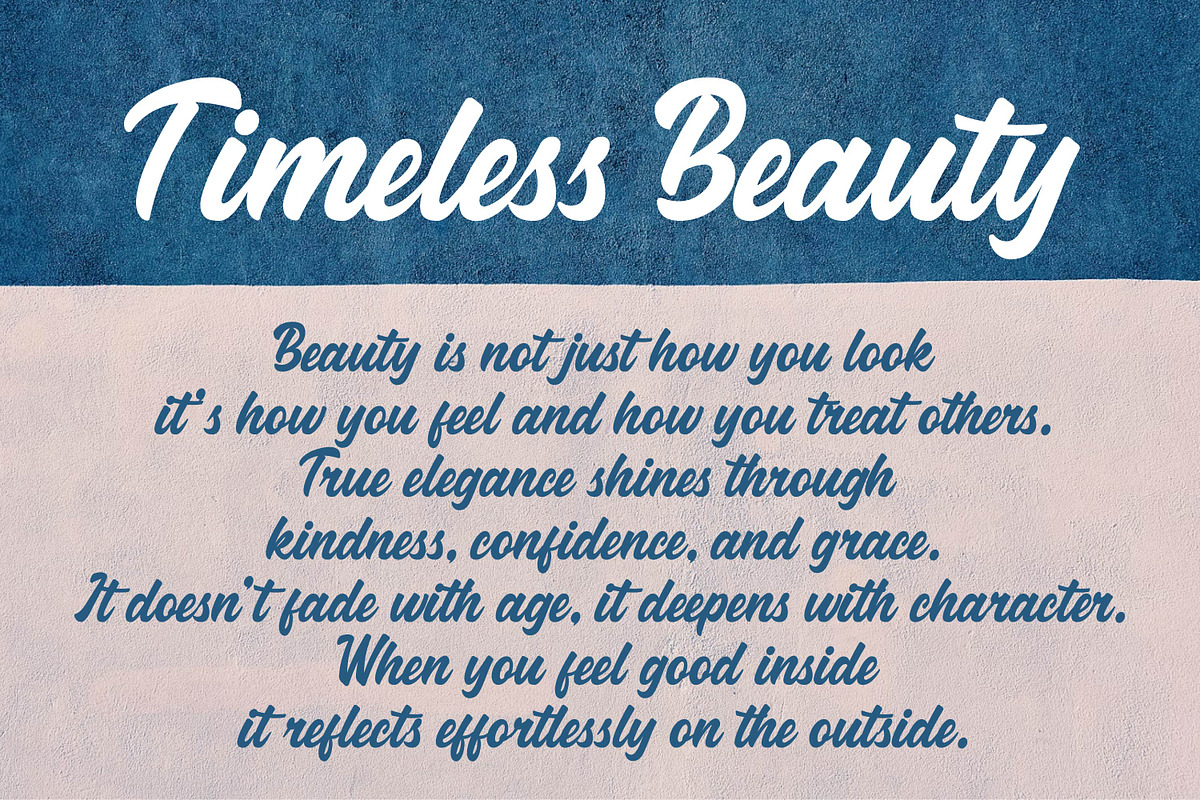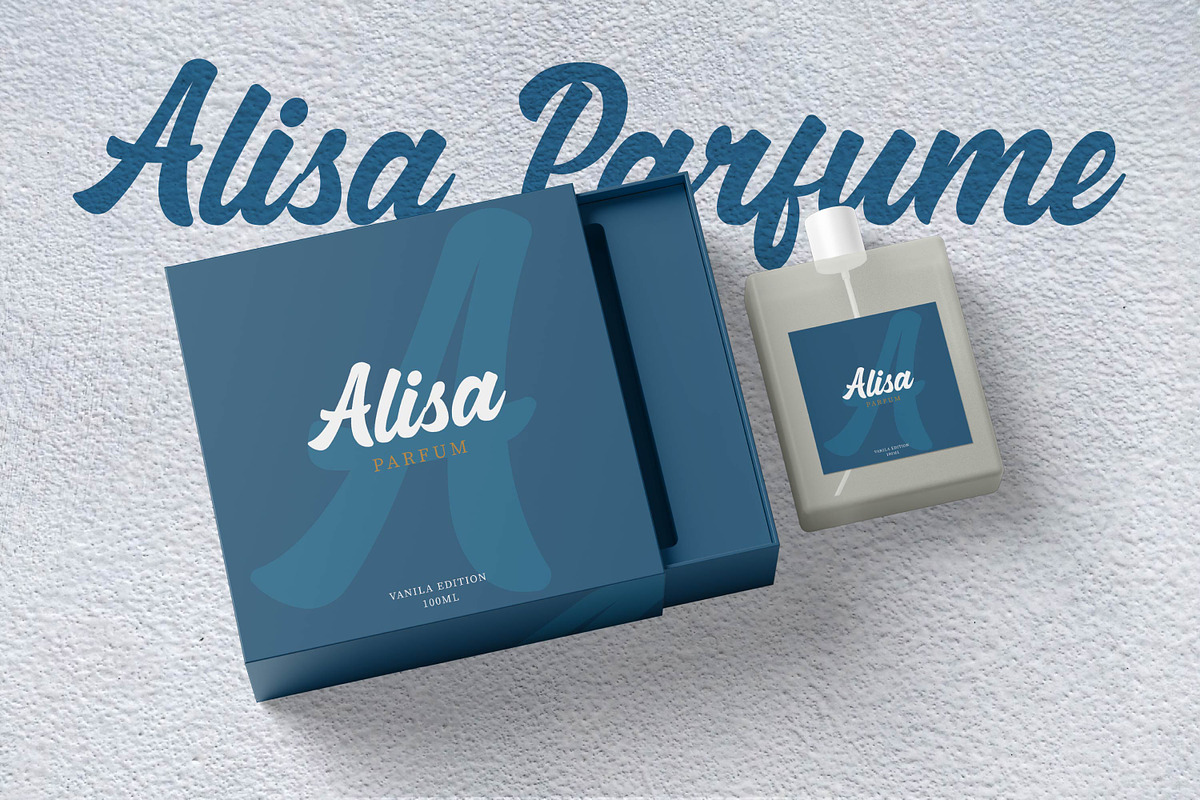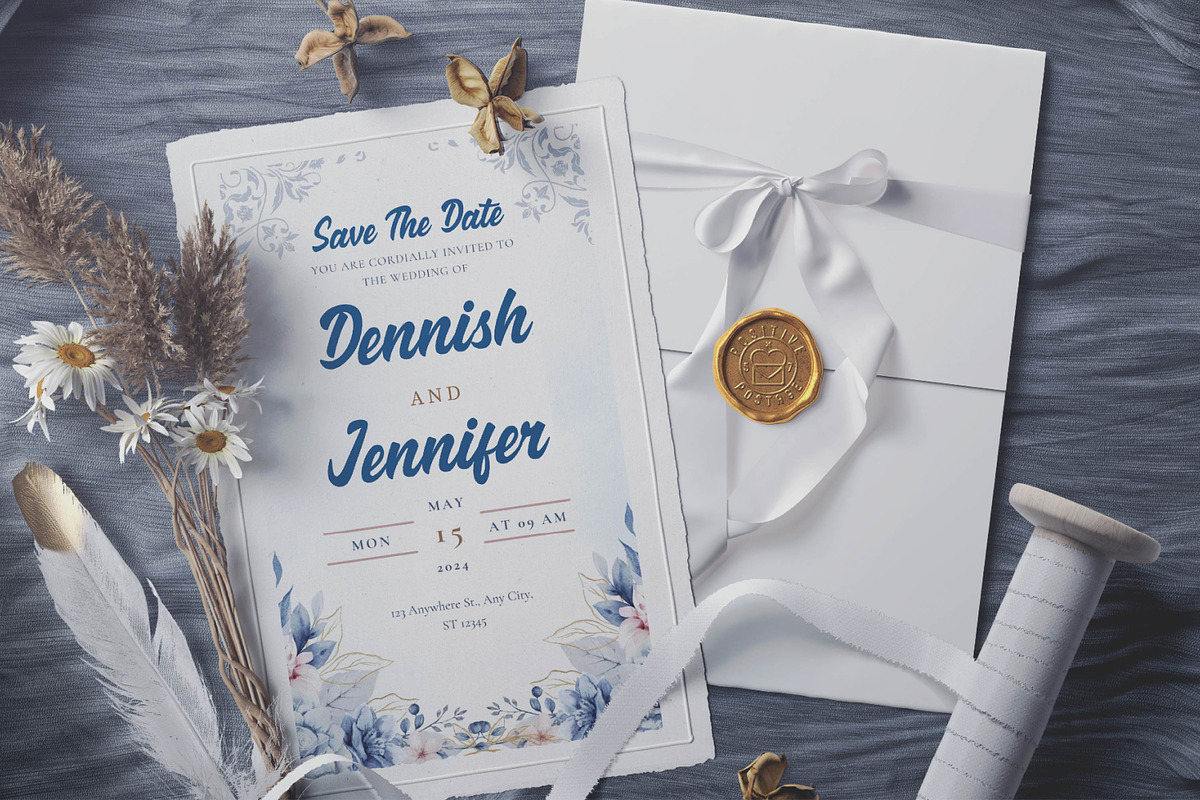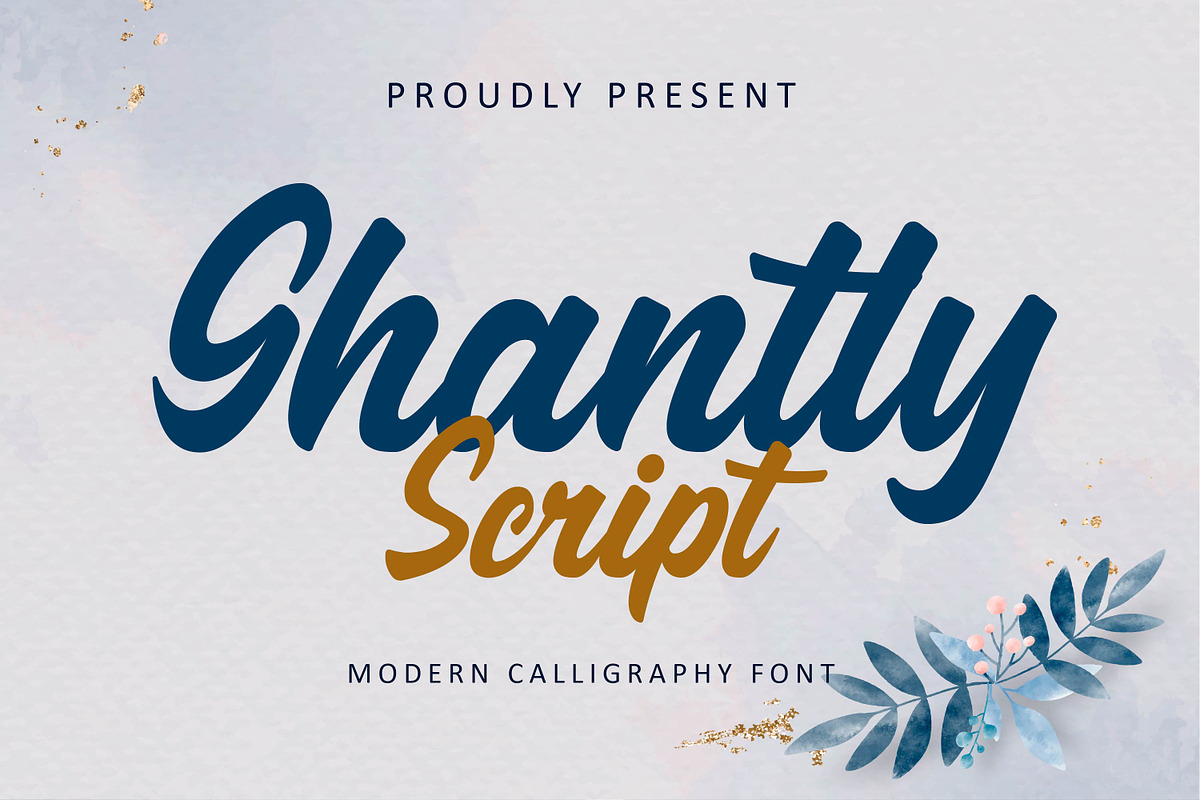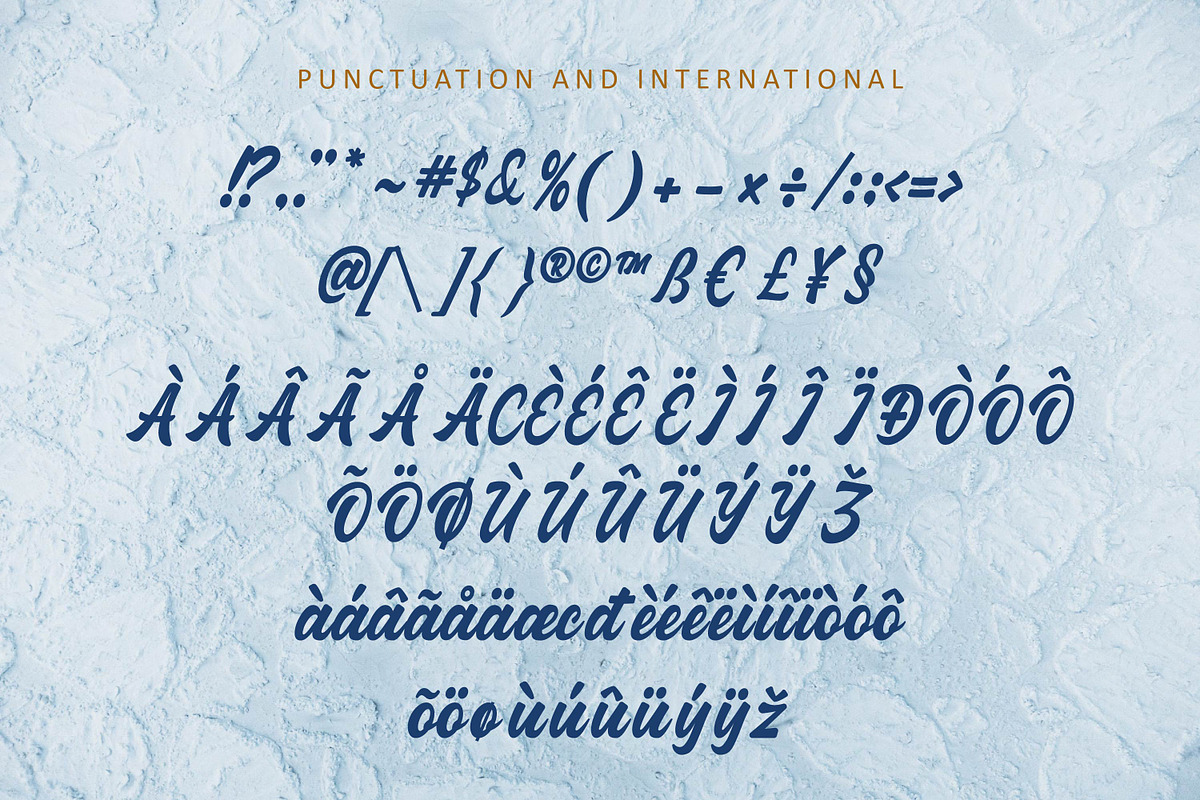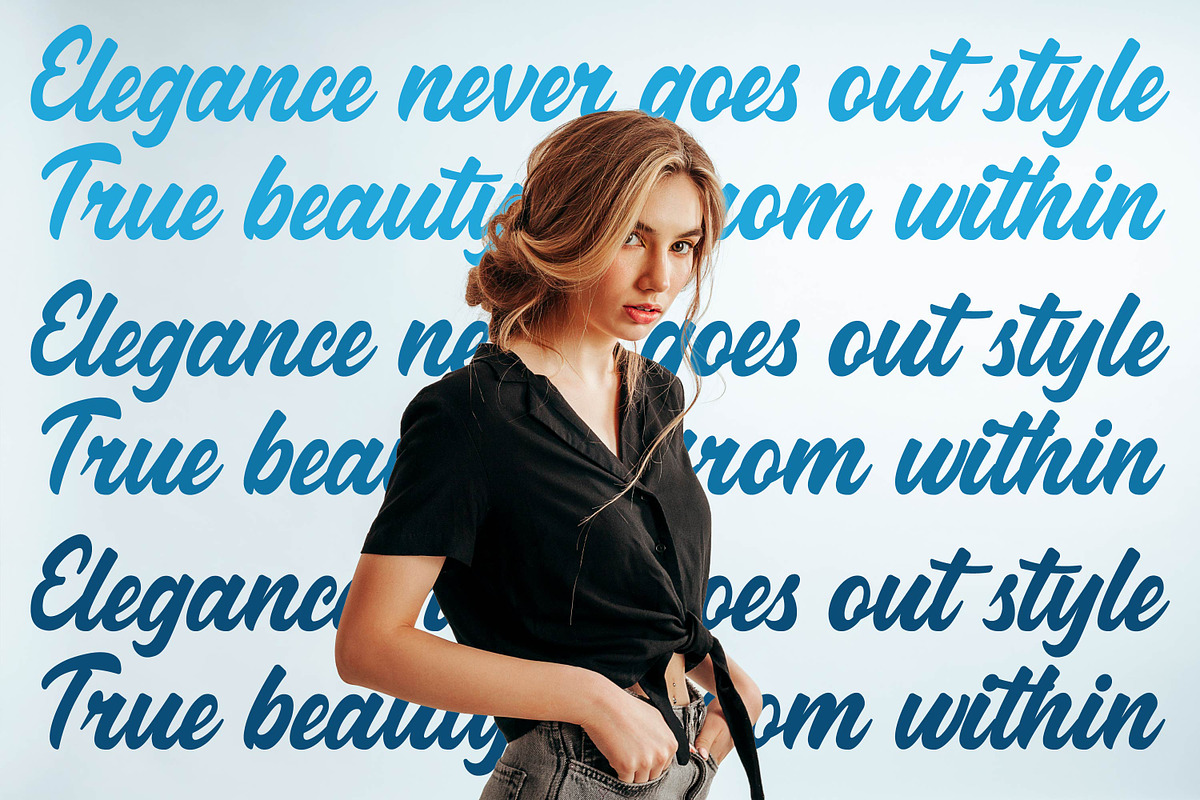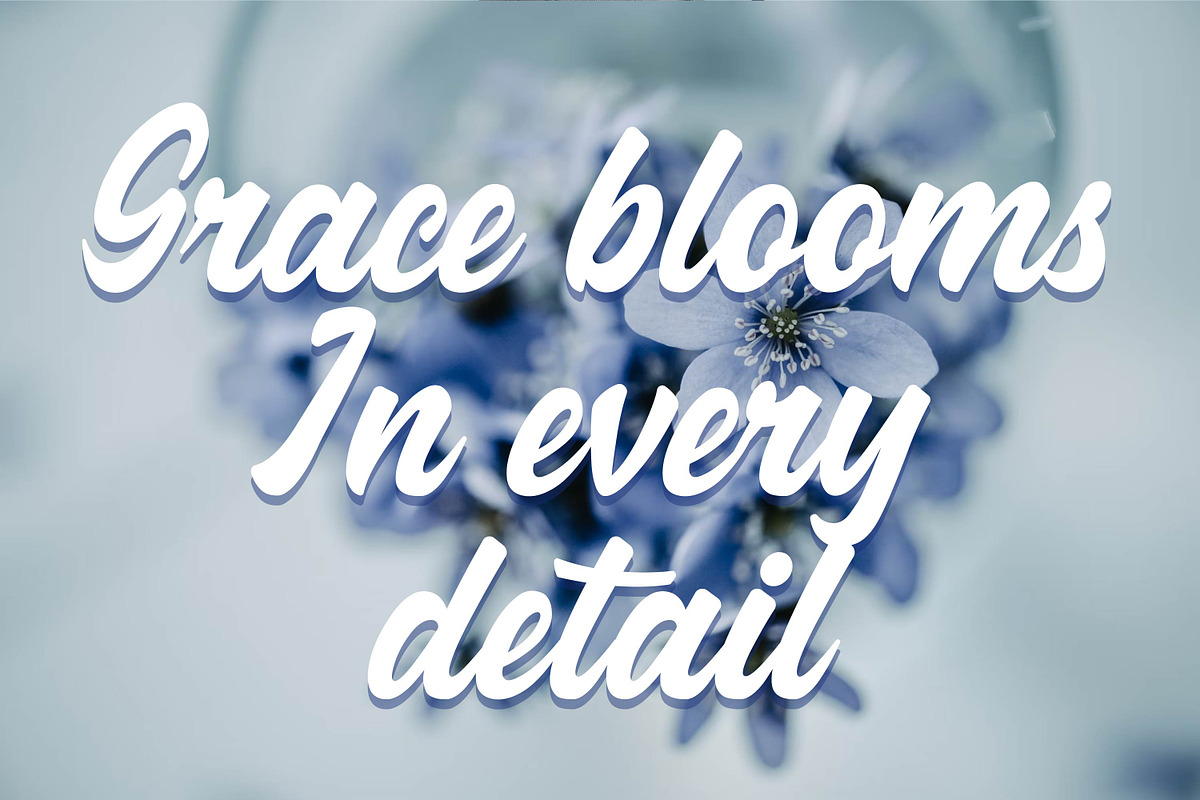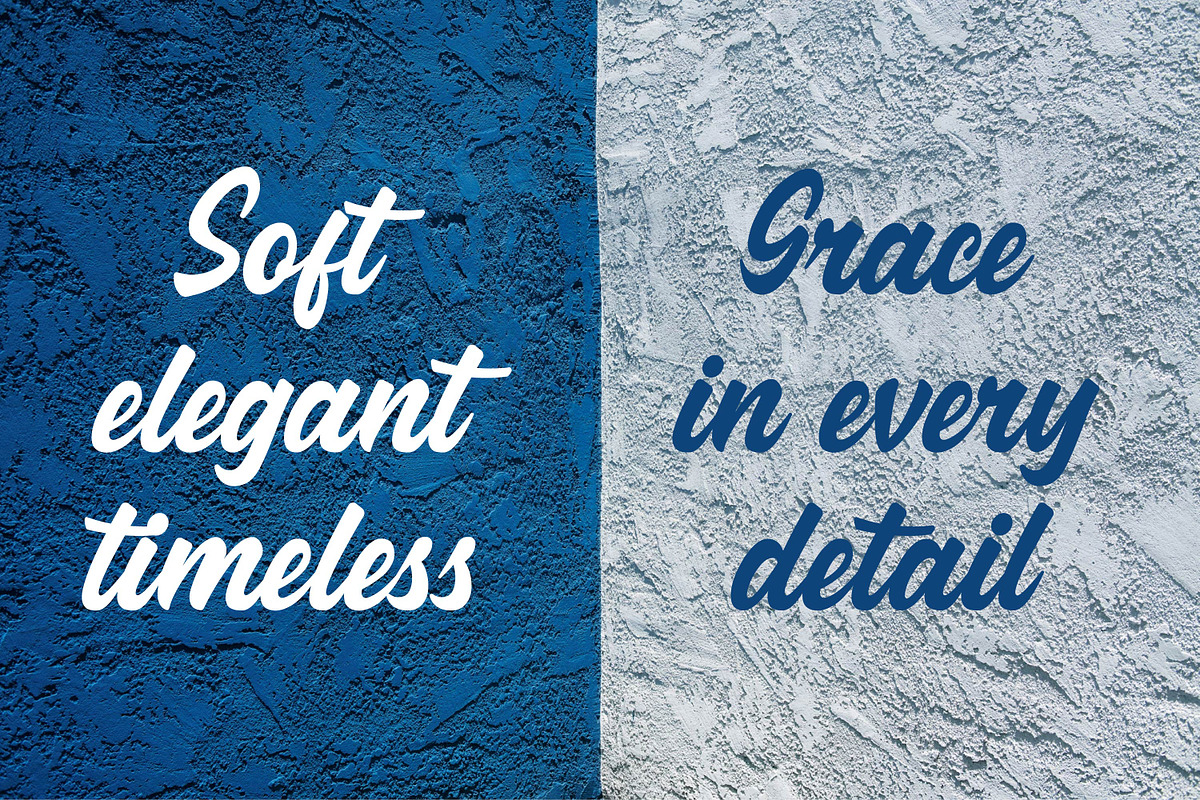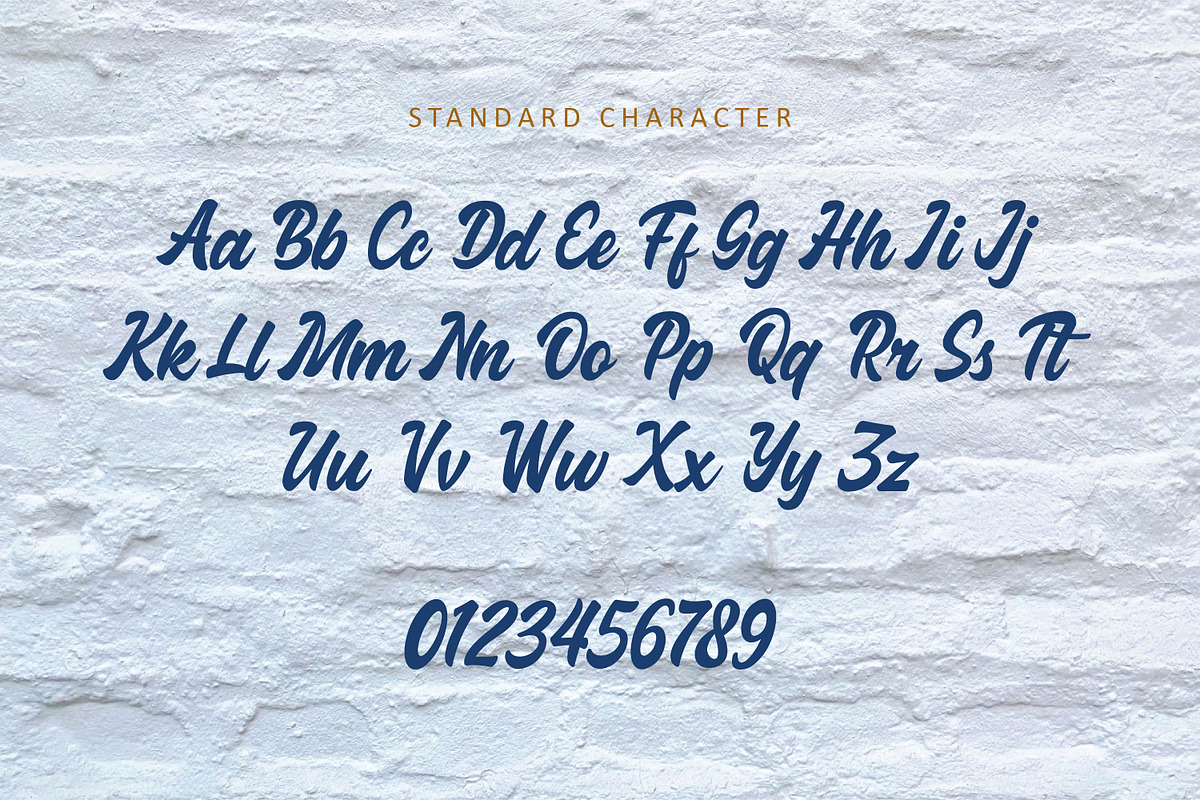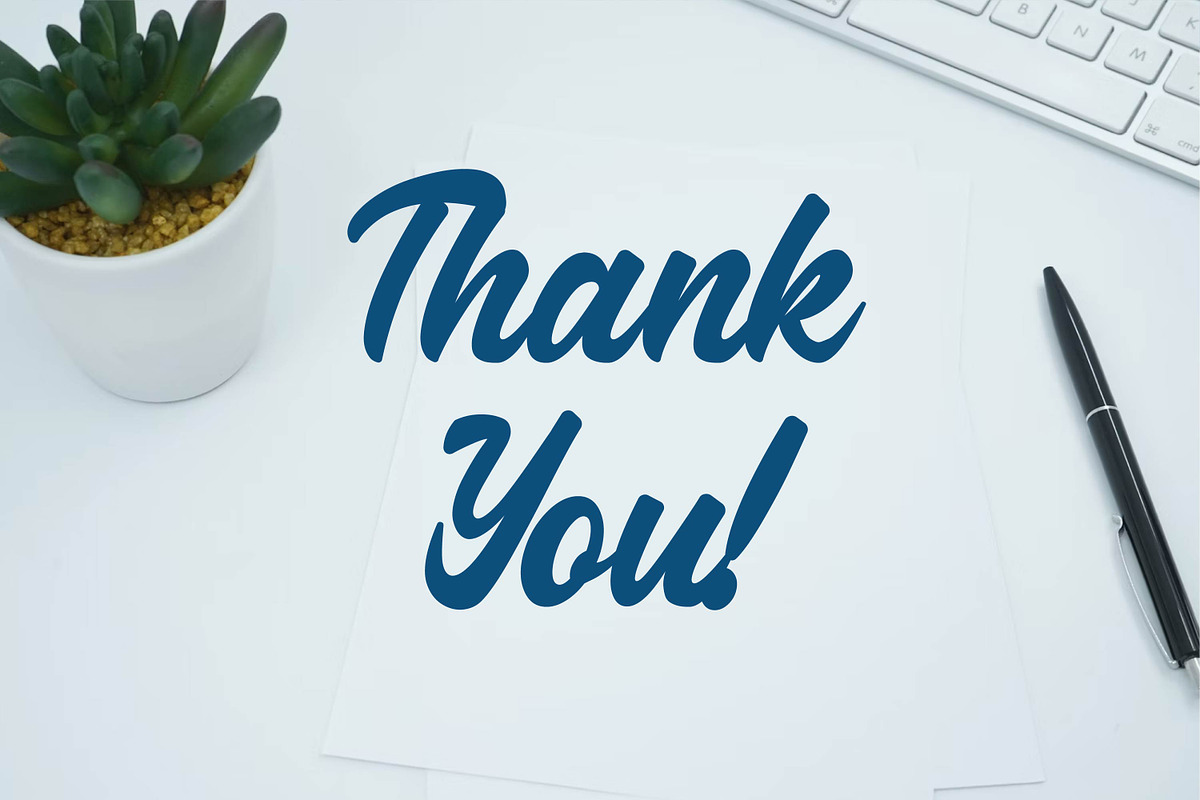
Ghantly Script - Modern Calligraphy
Ghantly Script - Modern Calligraphy Font
Ghantly Script is a modern calligraphy font that blends elegance and readability. With its flowing strokes, soft curves, and clean structure, this font is ideal for wedding invitations, beauty branding, feminine logos, social media posts, and other creative projects that demand a touch of charm and class. Let Ghantly Script bring graceful sophistication to your design.